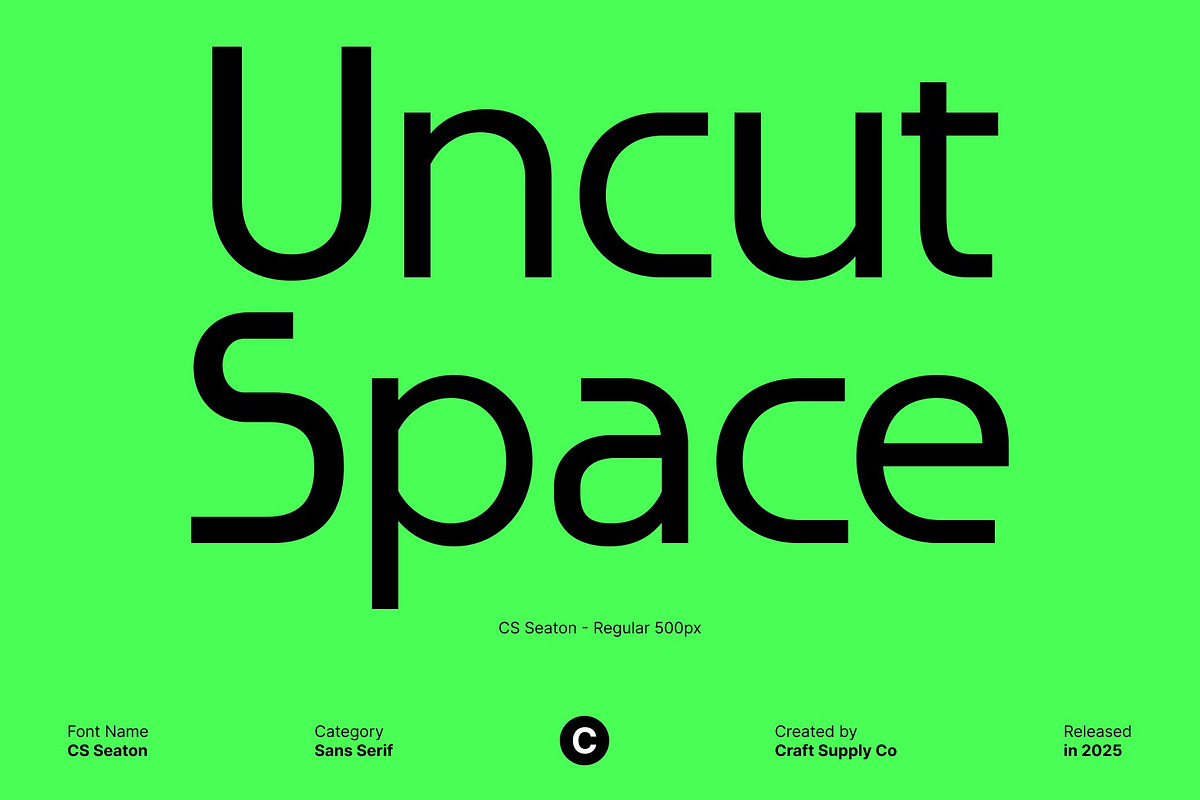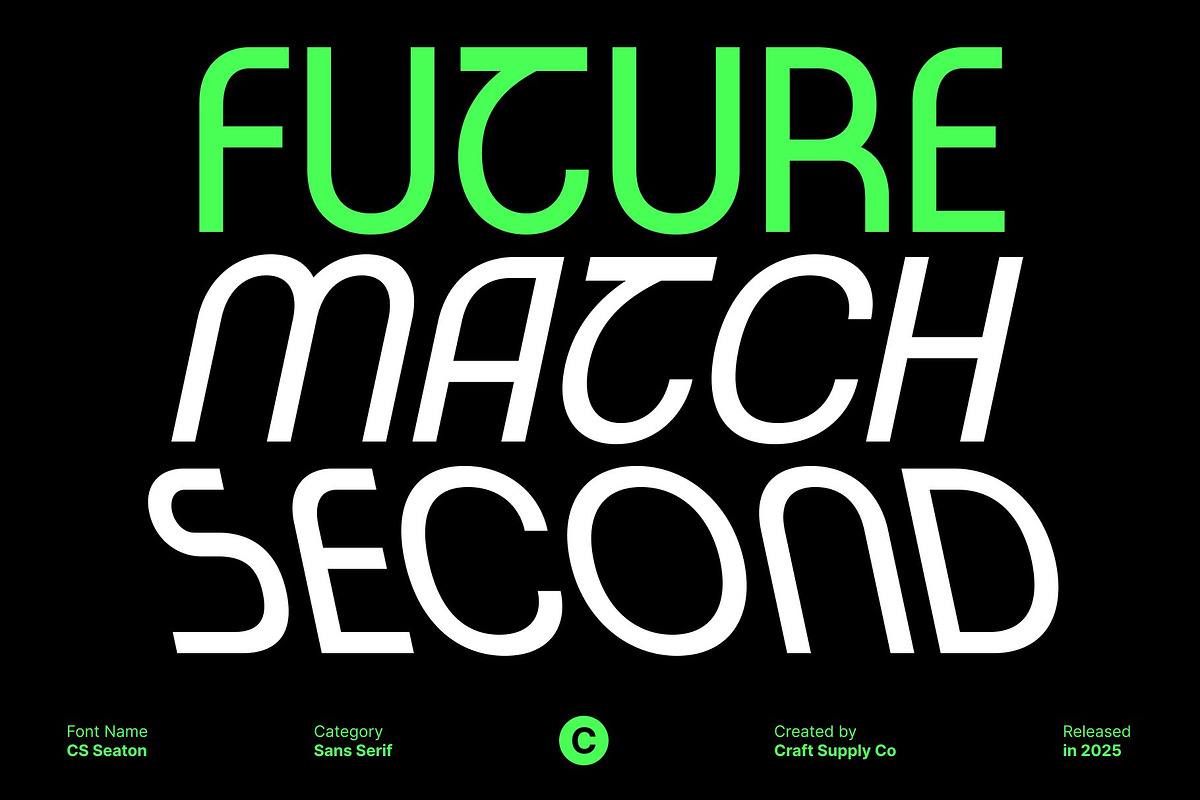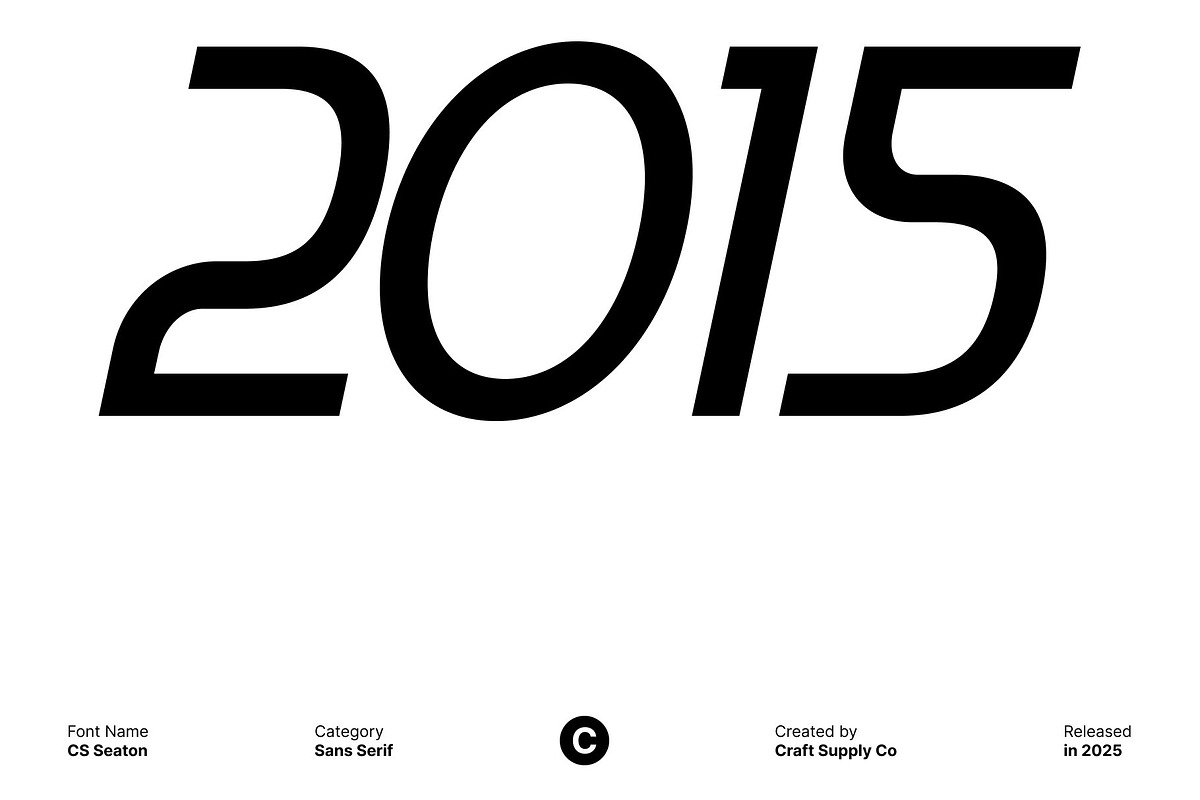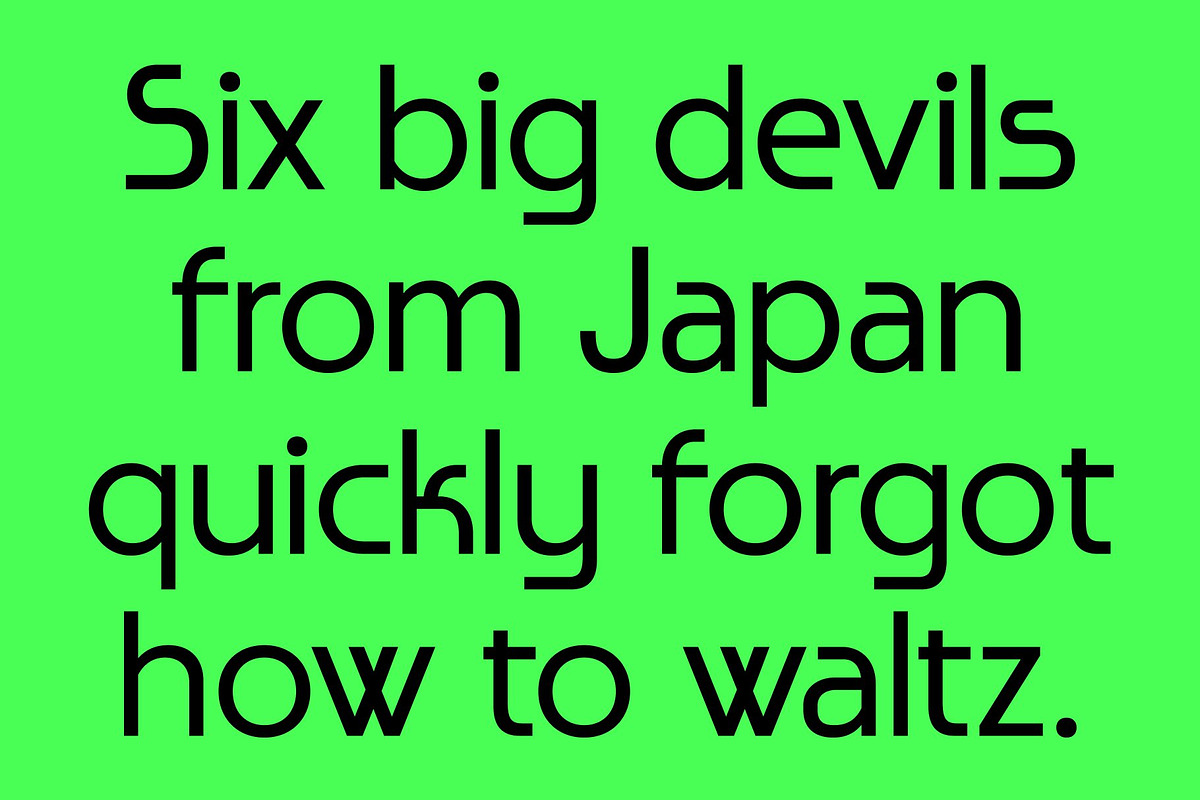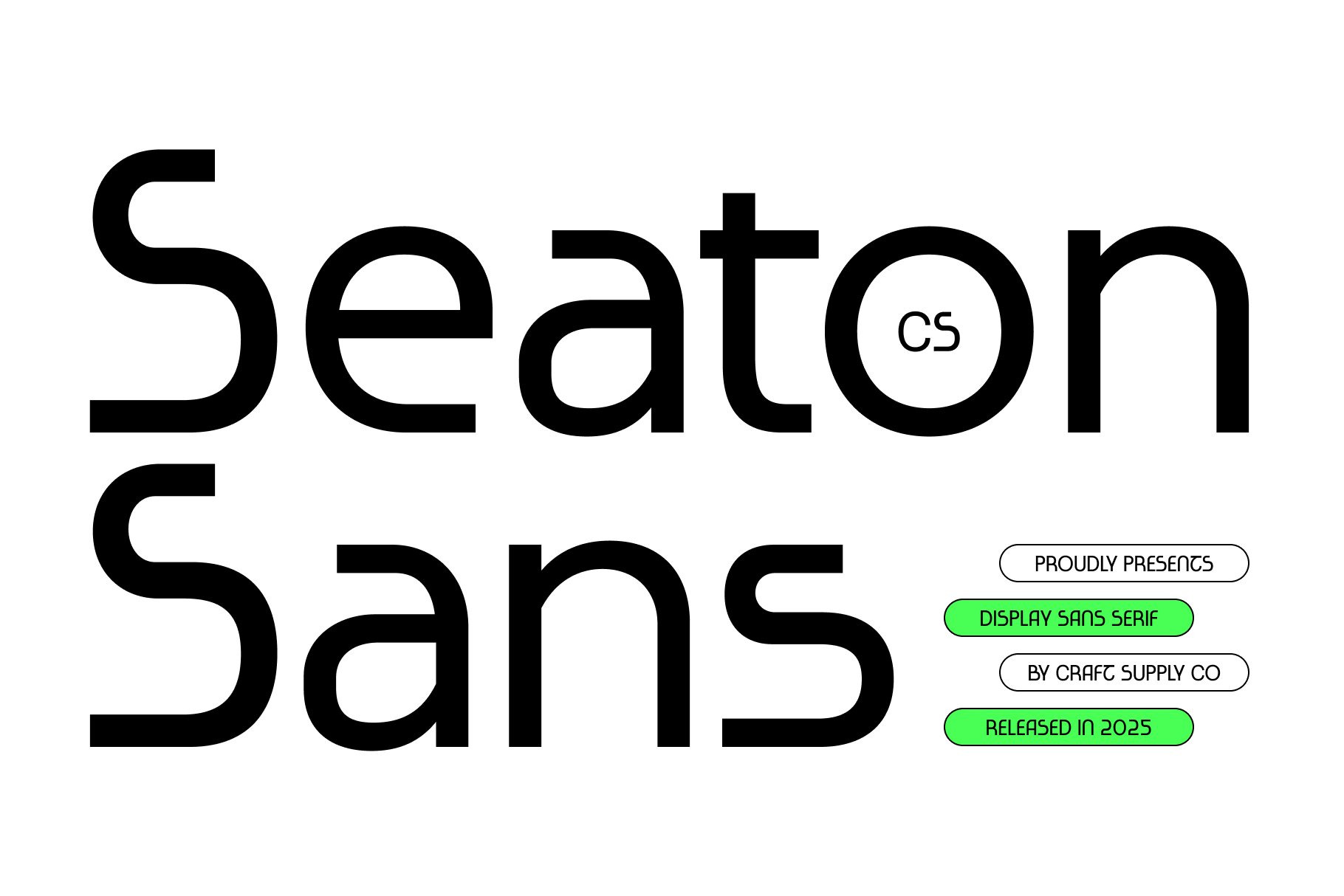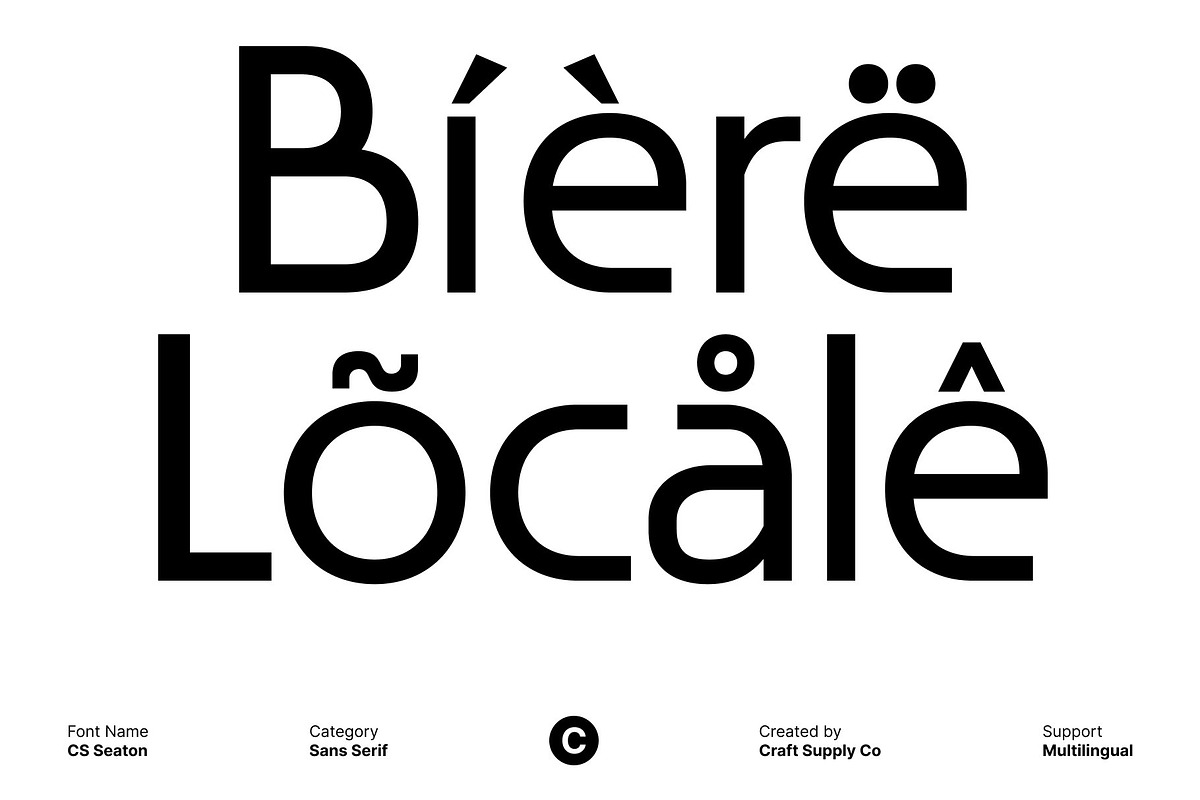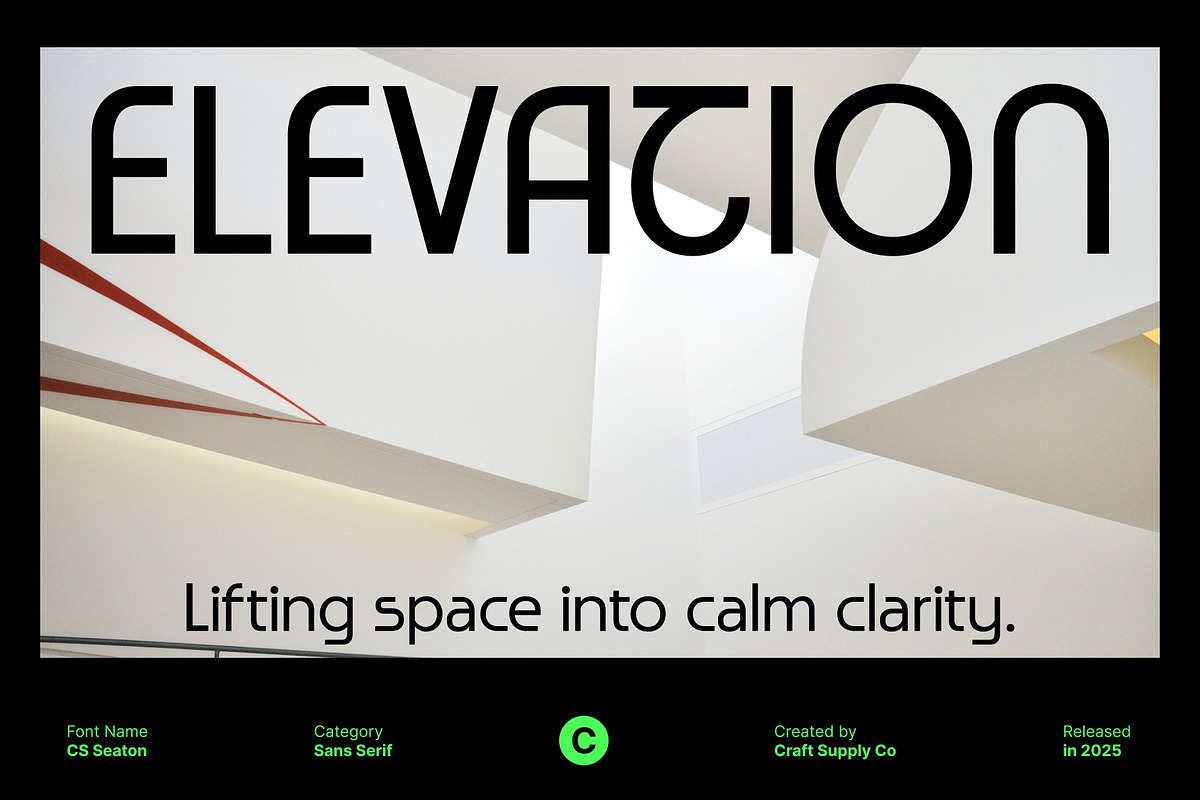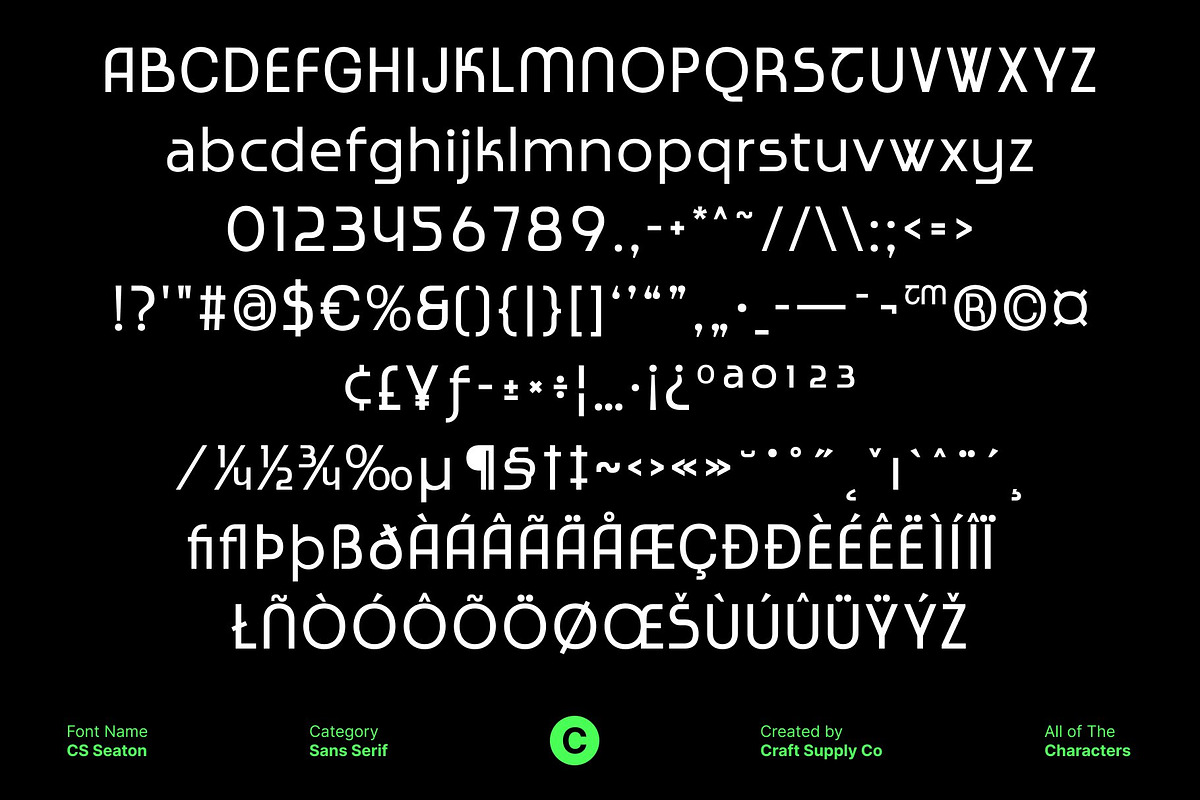
CS Seaton – Sans Serif Typeface
CS Seaton – Modern Contemporary Sans Serif Font
Modern Contemporary Design with a Fresh Identity This is a modern sans serif font crafted with a unique, contemporary touch that instantly sets it apart from typical minimalist typefaces. Designed with clean structure and purposeful precision, delivers a fresh and innovative identity that elevates any visual project.
Techno-Inspired Style for Futuristic Aesthetics Embracing subtle techno influences, introduces angular nuances and sleek geometric shapes that enhance its futuristic appearance. The font’s clean edges and confident forms create a dynamic visual rhythm, ideal for modern interfaces and digital-forward designs. Its techno-inspired aesthetic brings energy and structure, making it well-suited for projects that need a forward-looking, cutting-edge impression.
Clean, Crisp Shapes for Professional Versatility This font maintains a smooth balance between creativity and clarity. Its sharp sans serif construction ensures excellent readability while preserving a stylish, polished look. This makes it highly versatile, allowing it to adapt seamlessly to branding, advertising, digital layouts, and editorial work.
Perfect for Techno, Modern, and Minimalist Projects From techno-themed graphics to sleek corporate branding, brings modernity and freshness to every design. It works exceptionally well for posters, websites, logos, product packaging, UI design, and more. Its refined style and contemporary vibe give designers the freedom to create visuals that feel clean, futuristic, and effortlessly modern.